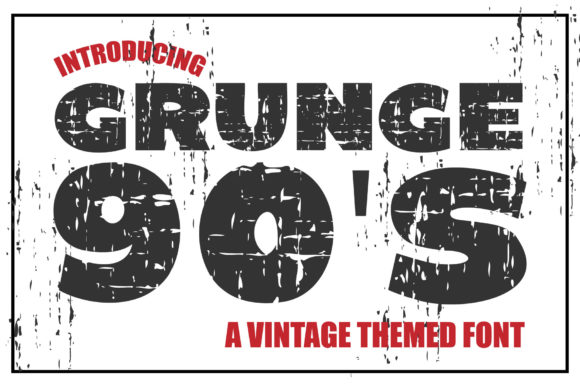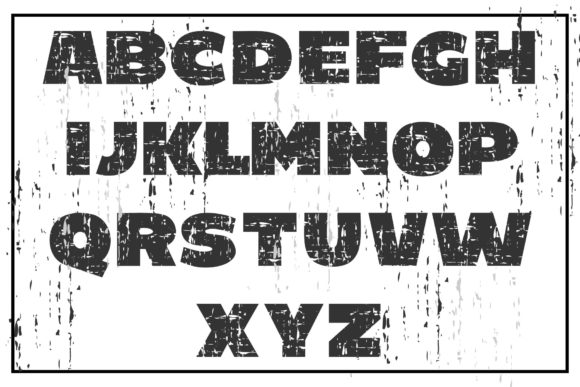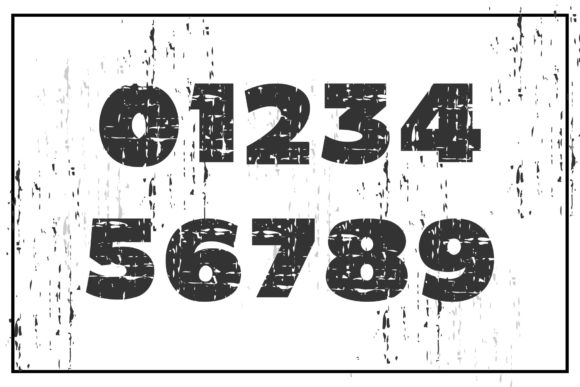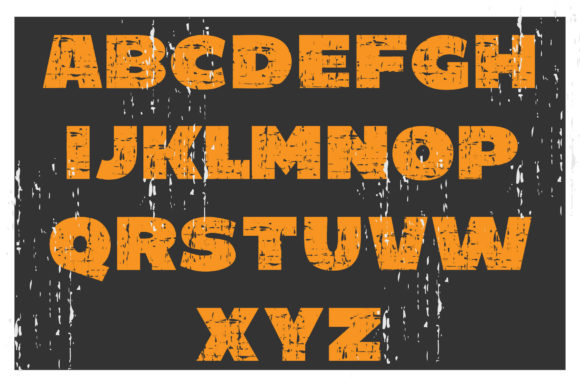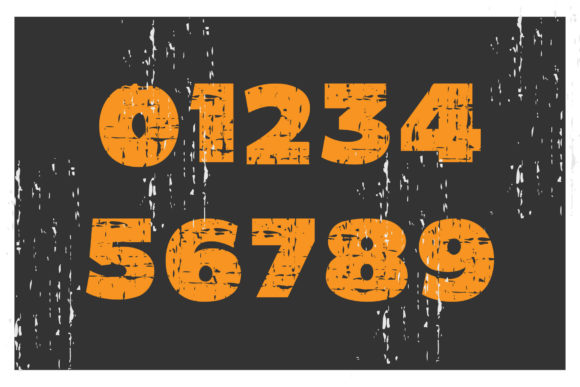
Grunge 90'S Font
Grunge 90’S Font
Grunge 90’S is a great display font. This fantastic font is best suited for headlines of all sizes, as well as for blocks of text that have both maximum and minimum variations. Whether it’s for web, print, moving images, or anything else – Grunge Splash will look spectacular.